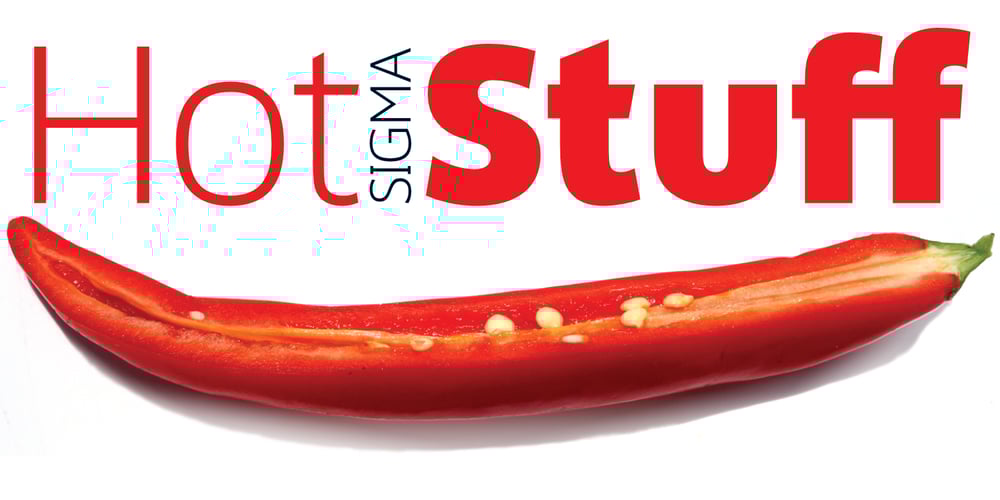
Sigma
Sigma font
Sigma Font Family was designed by Gert Wiescher and published by Wiescher Design. Sigma contains 16 styles and family package options. »SIGMA« is the name for the Greek voiceless »S«. It is also called the »Lunar Sigma«, in Hellenistic times the letter was simplified to »C«. I thought SIGMA was a nice name for my new, very readable and friendly Sans typeface. »SIGMA« has that classical Sans beauty with friendly touches that make it unique. You will love this font. It is a great everyday workhorse with seven weights from Thin to Bold and all the necessary weights in between. Great for body copy and headlines! With 875 Glyphs it is a truly European font designed for all Central European and Latin using countries. »SIGMA« has a set of Cyrillic that is – besides Russia – also good for Serbia, Macedonia and Ukraine. It has oldstyle- and lining-, tabular- and tabular-oldstyle-figures, many ligatures. »SIGMA« comes in Normal and Oblique, I made it Oblique instead of Italic which would have been too playful for this friendly font. Enjoy!